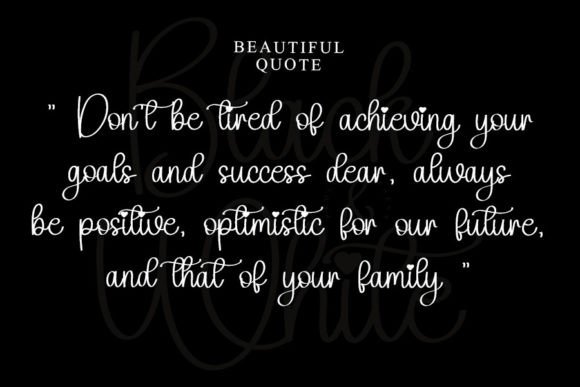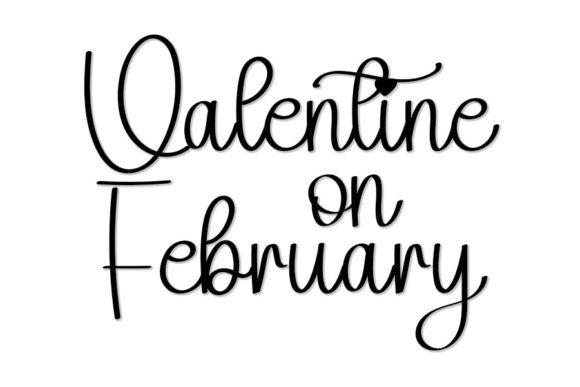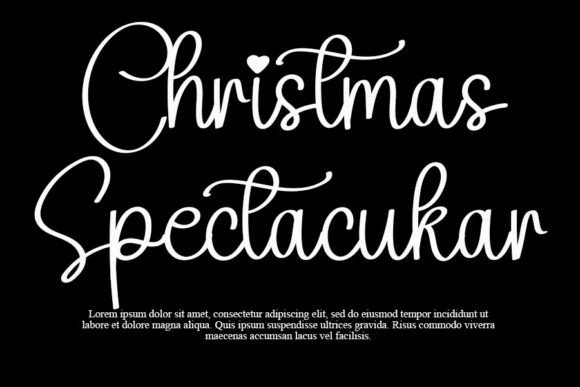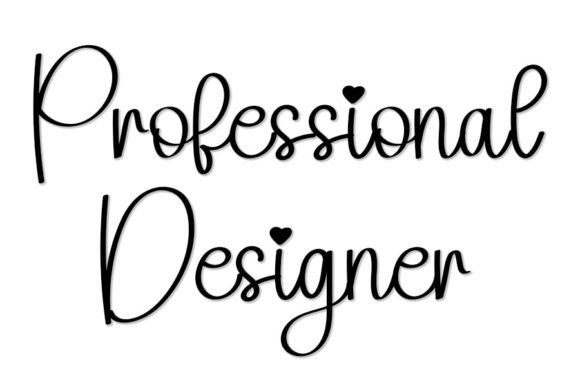
About Black and White Font
Black and White font is a trendy handwritten typeface that perfectly blends modern style with classic typography influences. Designed with impeccable form and a contemporary atmosphere, this font offers a unique combination of elegance and trendiness. It is ideal for anyone looking to add sophistication and charm to their creative projects.
A Contemporary Handwritten Typeface
This font captures the essence of modern handwriting while paying homage to classic typographic traditions. The clean lines and balanced structure make it suitable for a wide range of design applications. Black and White font’s stylish appearance is both eye-catching and easy to read, making it a reliable choice for designers seeking a timeless yet trendy font.
Versatile Applications for Your Designs
Black and White font adapts well to various design needs. Some of the most popular uses include:
Logo Design: Create strong, elegant logos that communicate professionalism and style.
Branding Projects: Elevate your brand’s visual identity with this classy and versatile font.
Invitations and Event Materials: Add a refined touch to wedding invitations, party cards, and special event stationery.
Social Media Graphics: Make your posts stand out with a font that combines flair and clarity.
Packaging and Labels: Enhance product packaging with a font that conveys both modernity and tradition.
Why Choose Black and White Font?
Choosing the Black and Whitefont means selecting a typeface that effortlessly combines trendiness with sophistication. Its classic inspiration ensures your designs will remain timeless, while its modern twist keeps your work fresh and relevant. This font allows you to express creativity without sacrificing professionalism.
Easy to Pair and Customize
Black and Whitefont works well alongside a variety of other typefaces. For example, pairing it with clean sans-serif fonts can create beautiful contrasts and improve readability. It is also highly customizable, allowing you to adjust size, weight, and spacing to perfectly fit your project’s needs.
Tips for Best Use
Use Black and Whitefont for headings, logos, and display text to maximize its impact.
Pair it with simpler fonts to maintain balance and focus.
Avoid using it in long paragraphs to keep your text legible and engaging.
Apply it in projects where you want to communicate both modernity and elegance.
Overall, Black and Whitefont is a fantastic choice for designers looking to add a stylish, handwritten touch with a classic edge. Its unique blend of contemporary and traditional elements makes it an invaluable asset for any creative project.